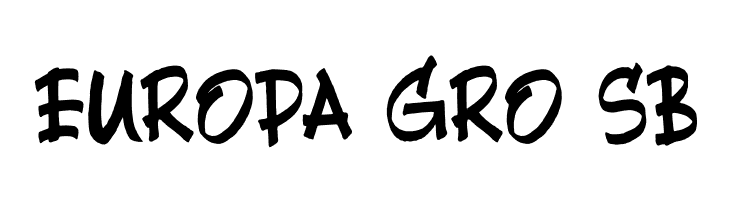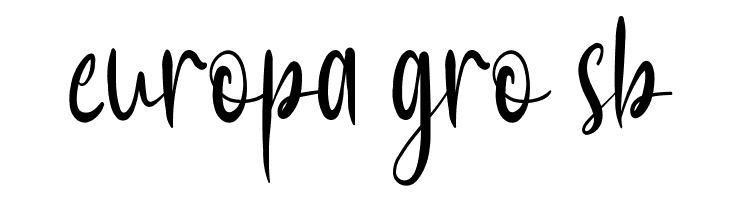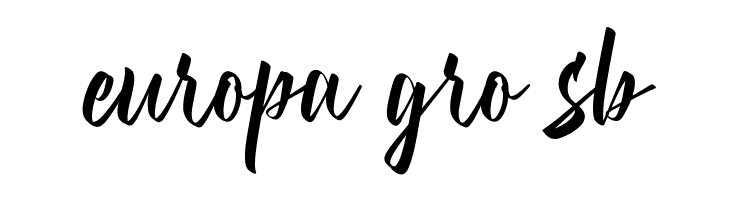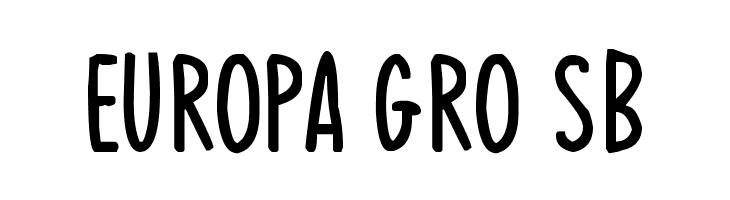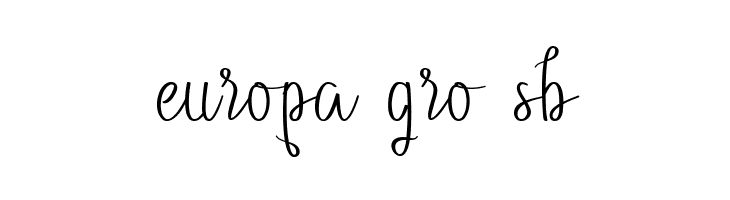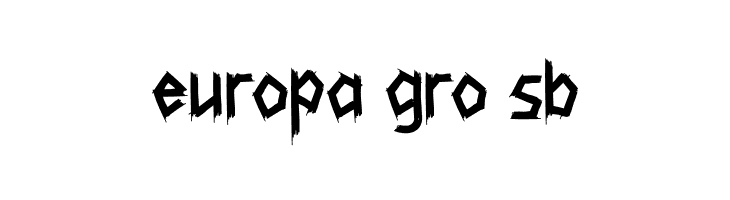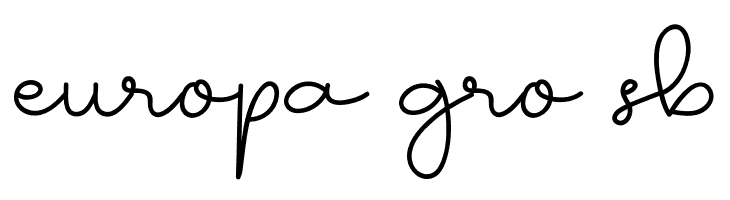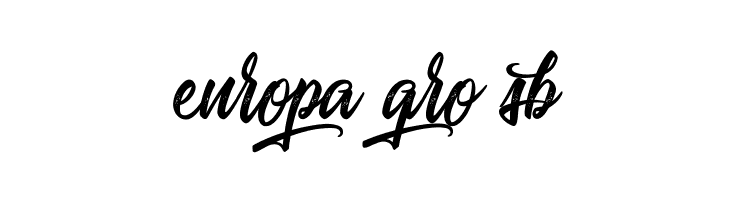
A playful and artistic handwritten font with dynamic letterforms and medium contrast.
A bold, edgy font with sharp, jagged edges and a graffiti-like style.
A bold, handwritten-style font with dynamic, slanted characters.
A playful, casual handwritten font with smooth, flowing lines and a whimsical touch.
A dynamic and flowing script font with elegant, cursive letterforms.
A bold, playful handwritten font with rounded strokes and uniform height.
A dynamic and elegant script font with flowing, cursive letterforms and brush-like strokes.
An elegant, whimsical script font with flowing, interconnected letters and playful loops.
A bold, playful font with rounded strokes and a friendly appearance.